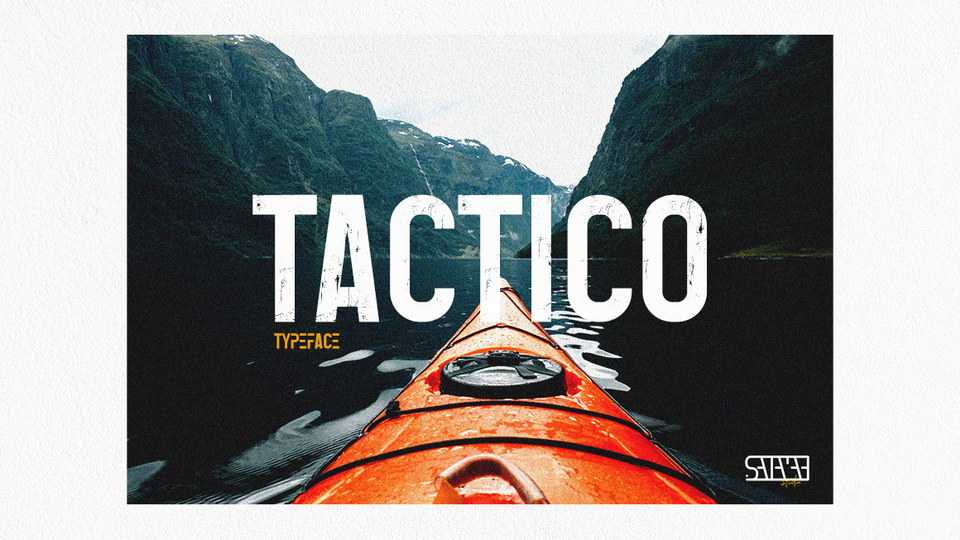
Download Tactico font, a cool, brushed and bold sans serif typeface. Tactico will look stunning on any poster flyer or print. Use this font for your designs and explore its endless possibilities.